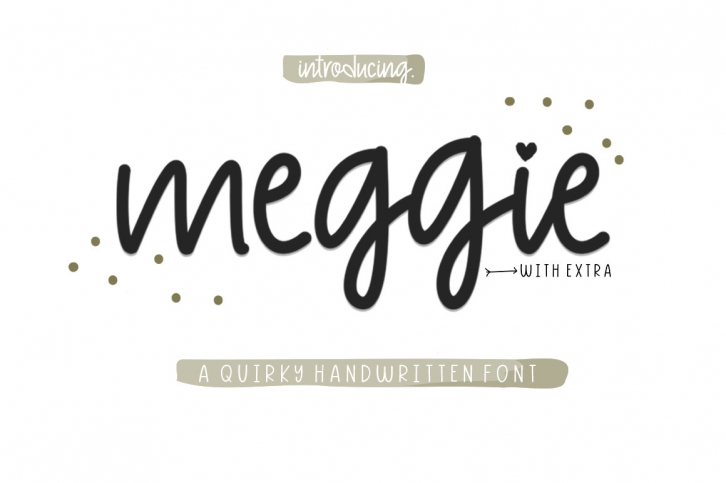
Meggie is a cute and natural handwritten font. It is perfect for product packaging, branding project, magazine covers, social media, wedding, or just used to express words above the background.